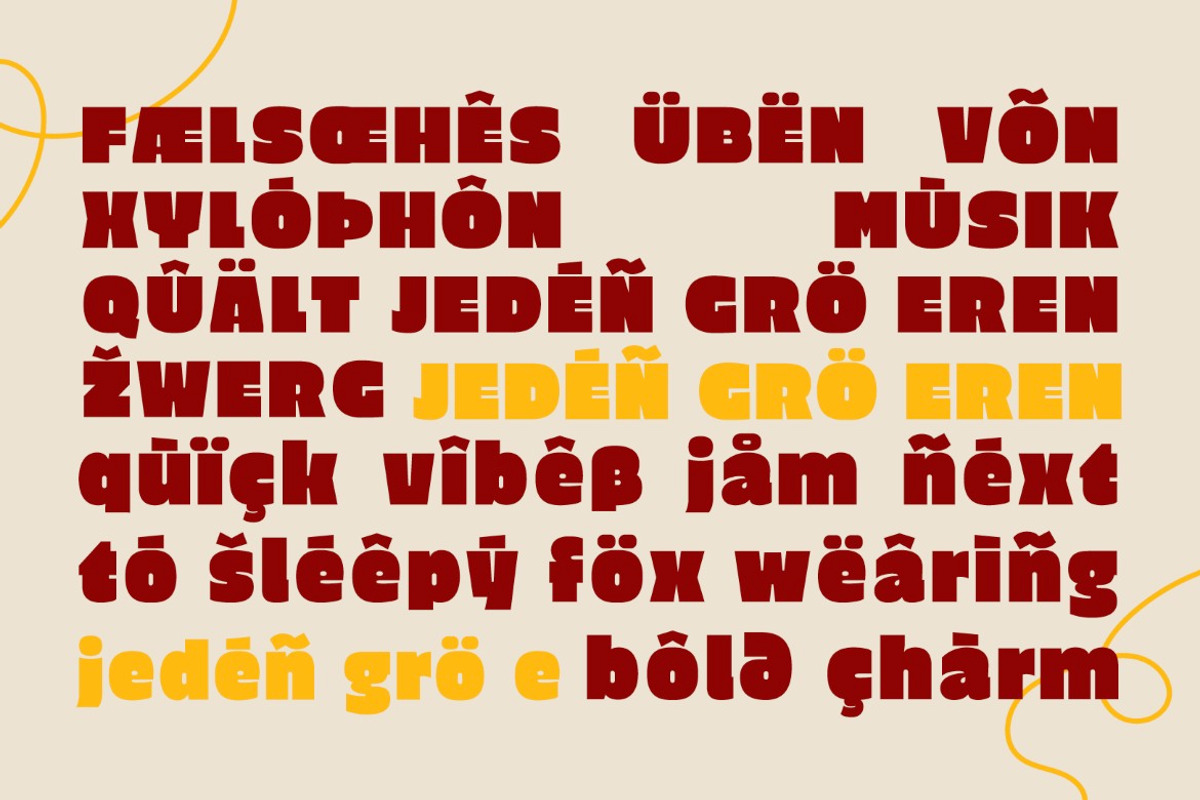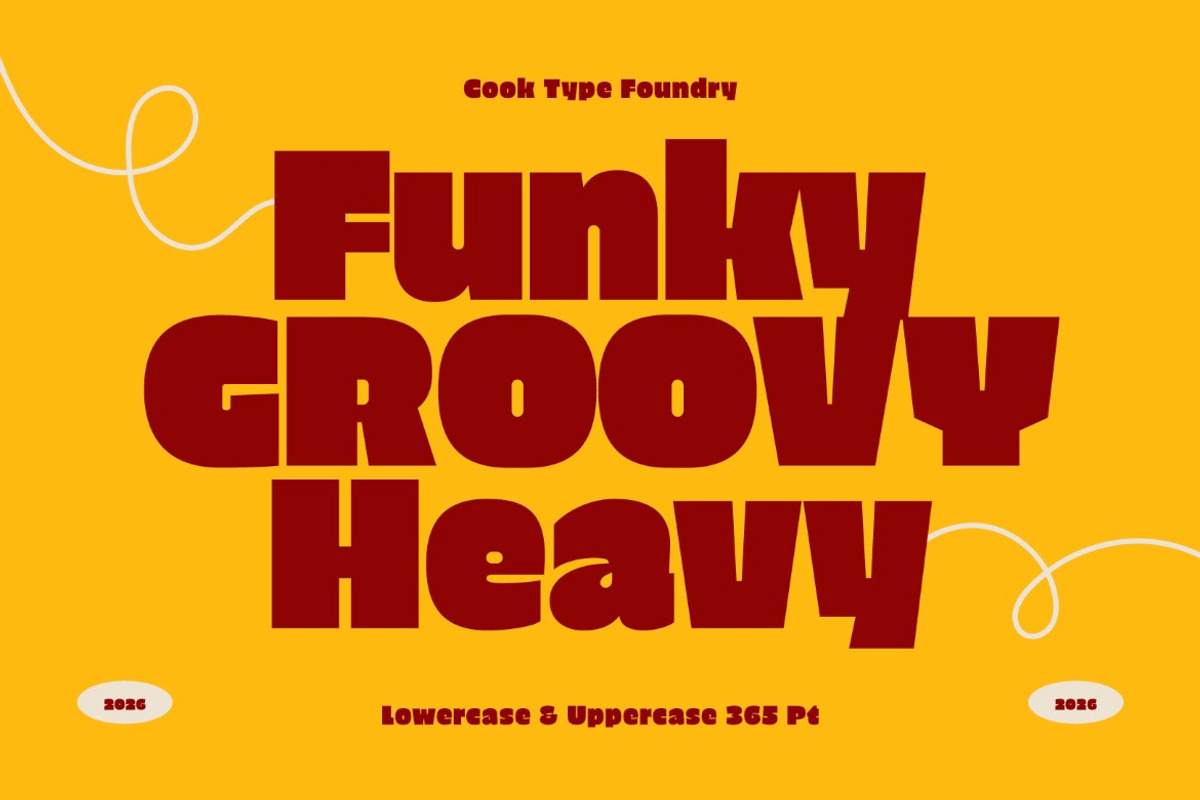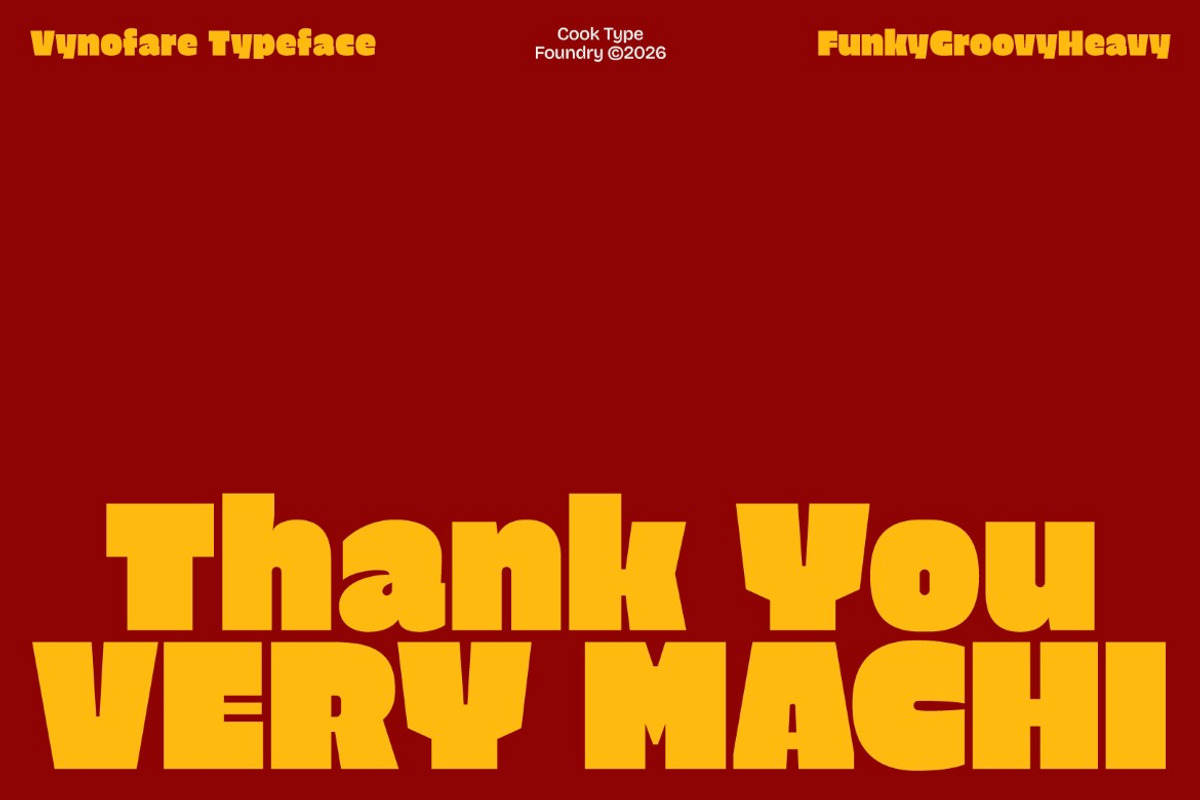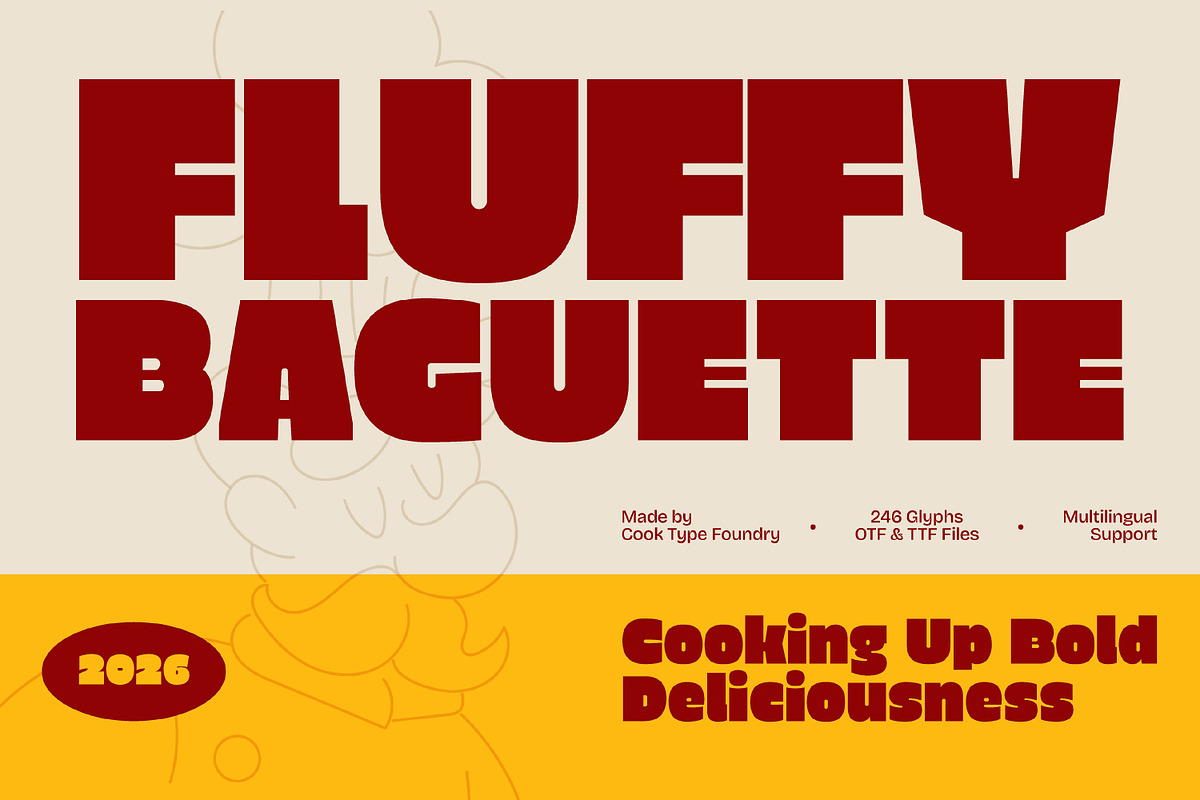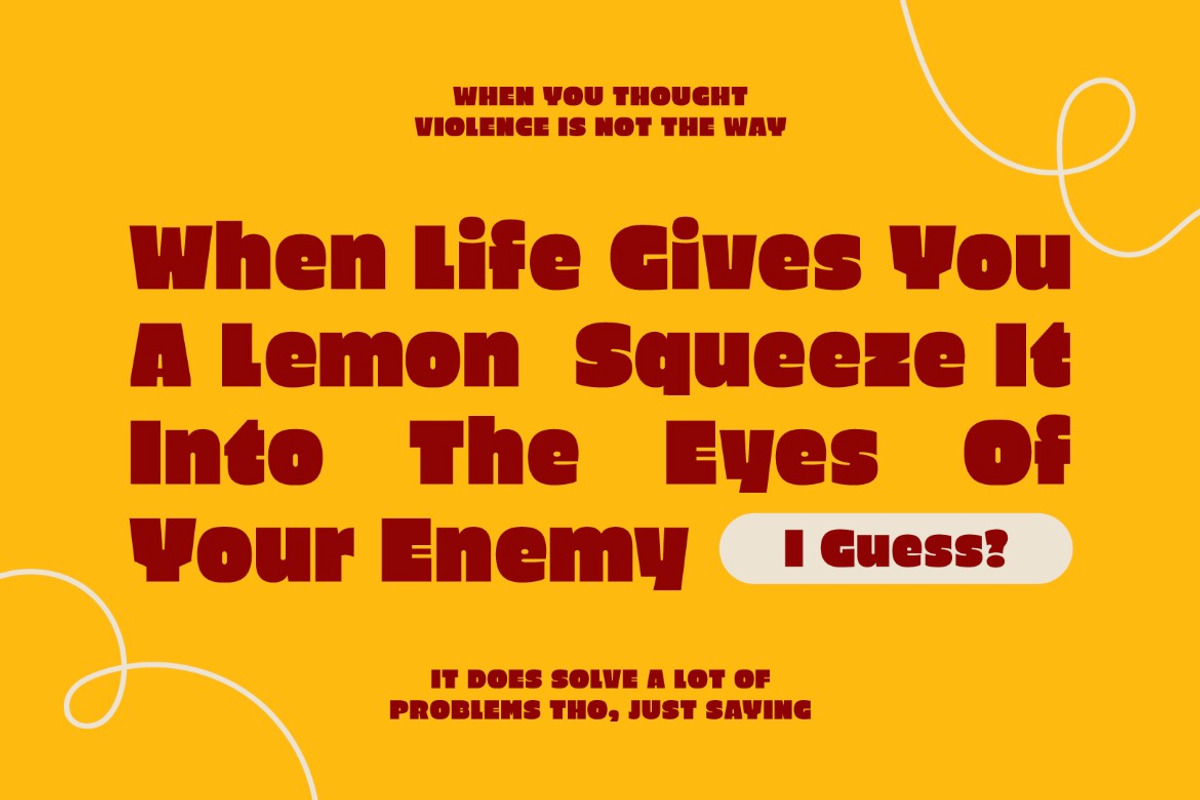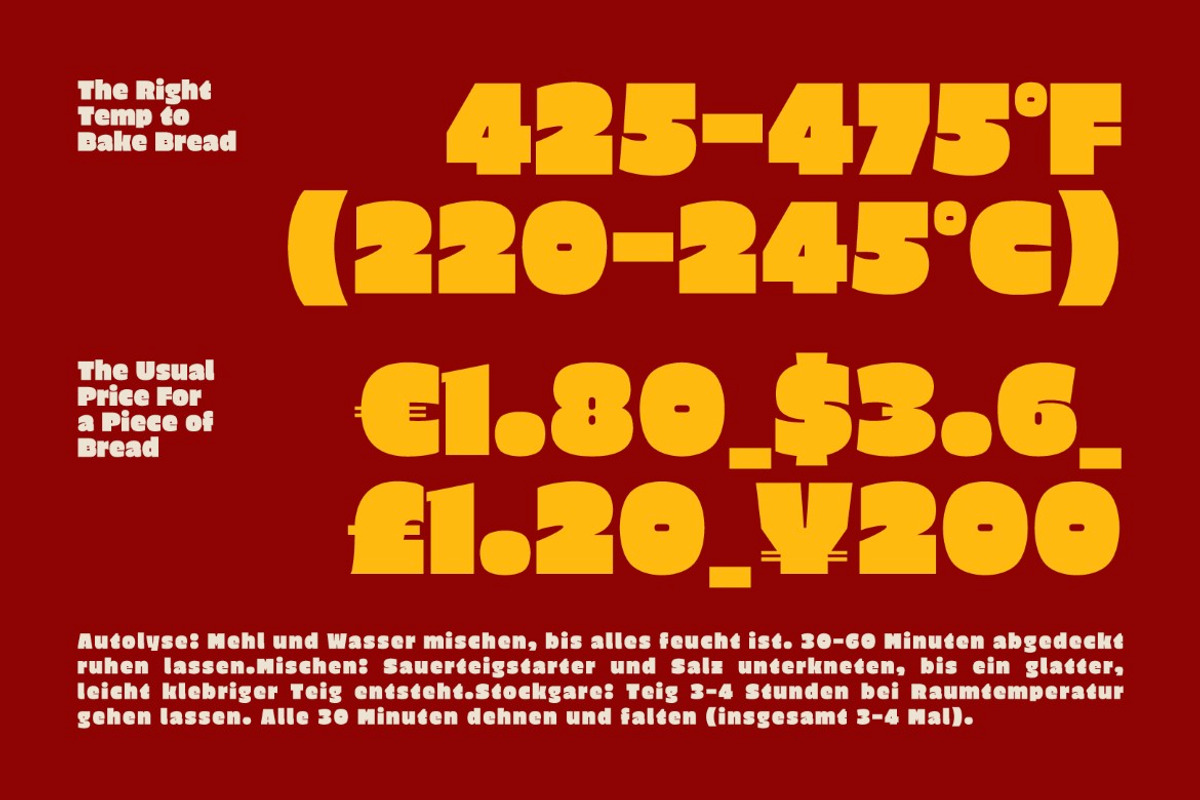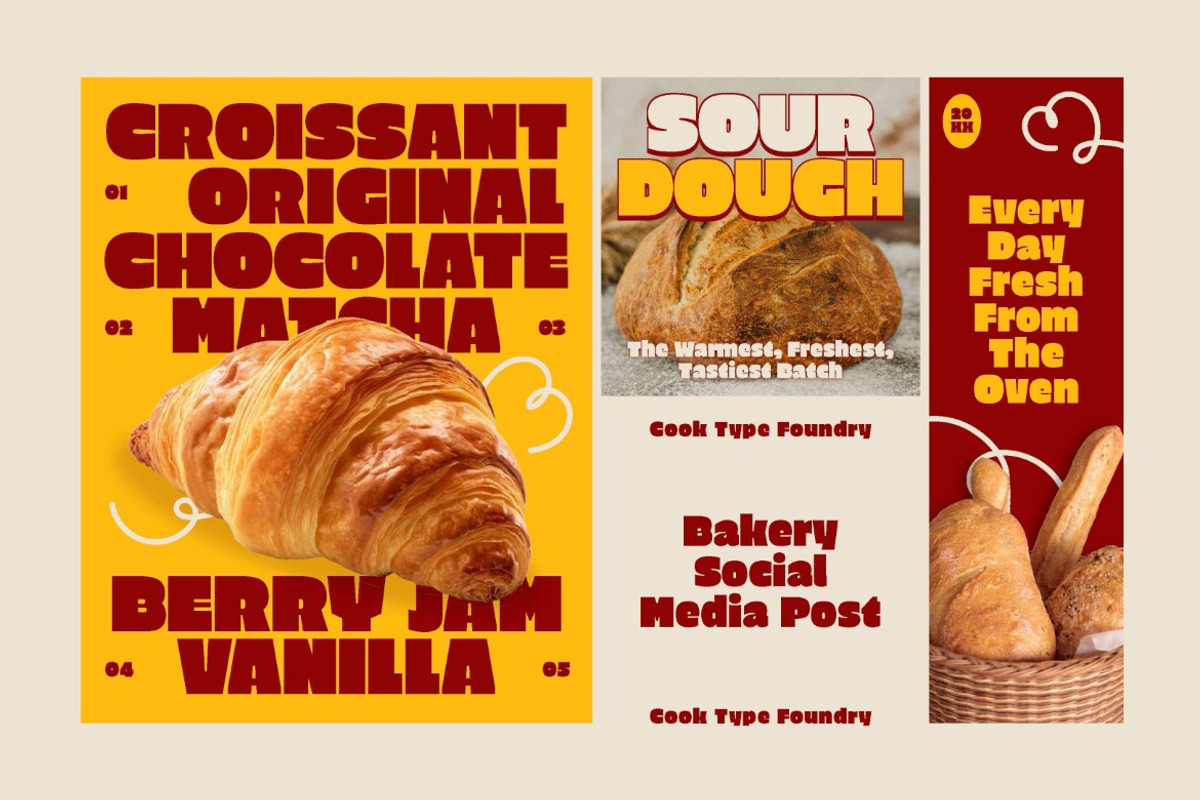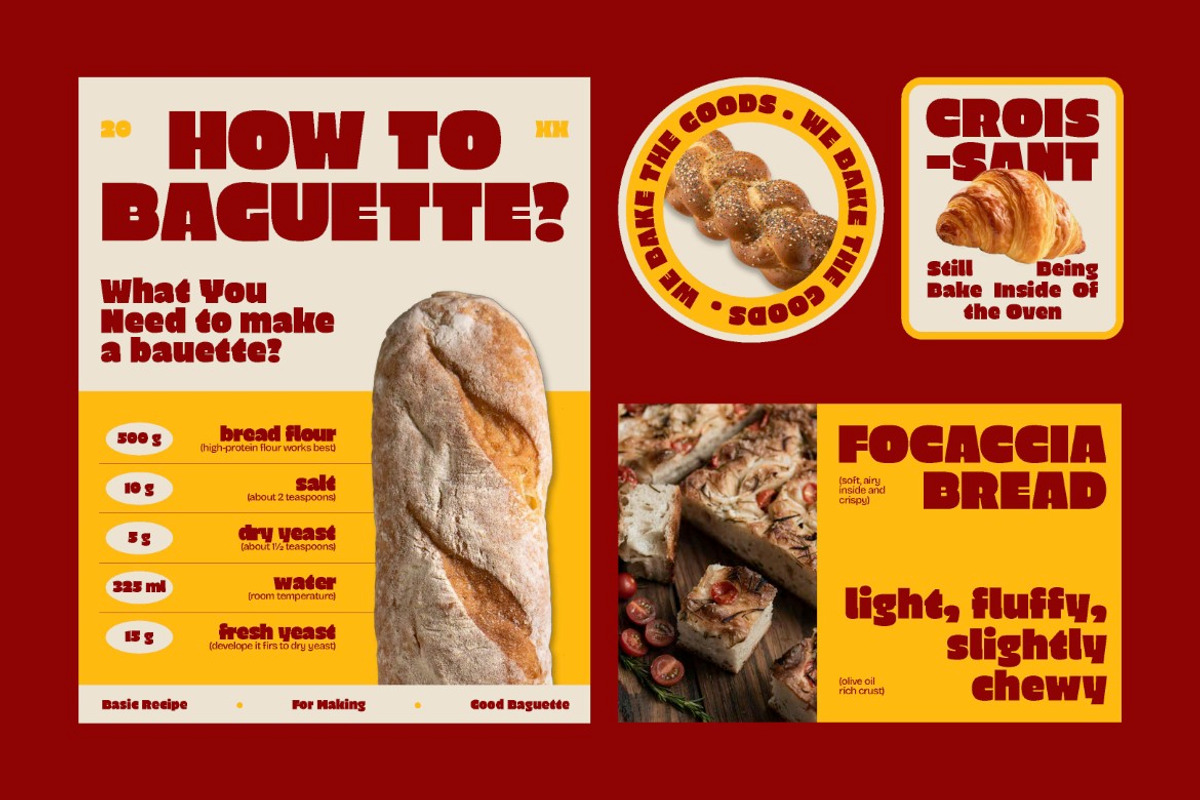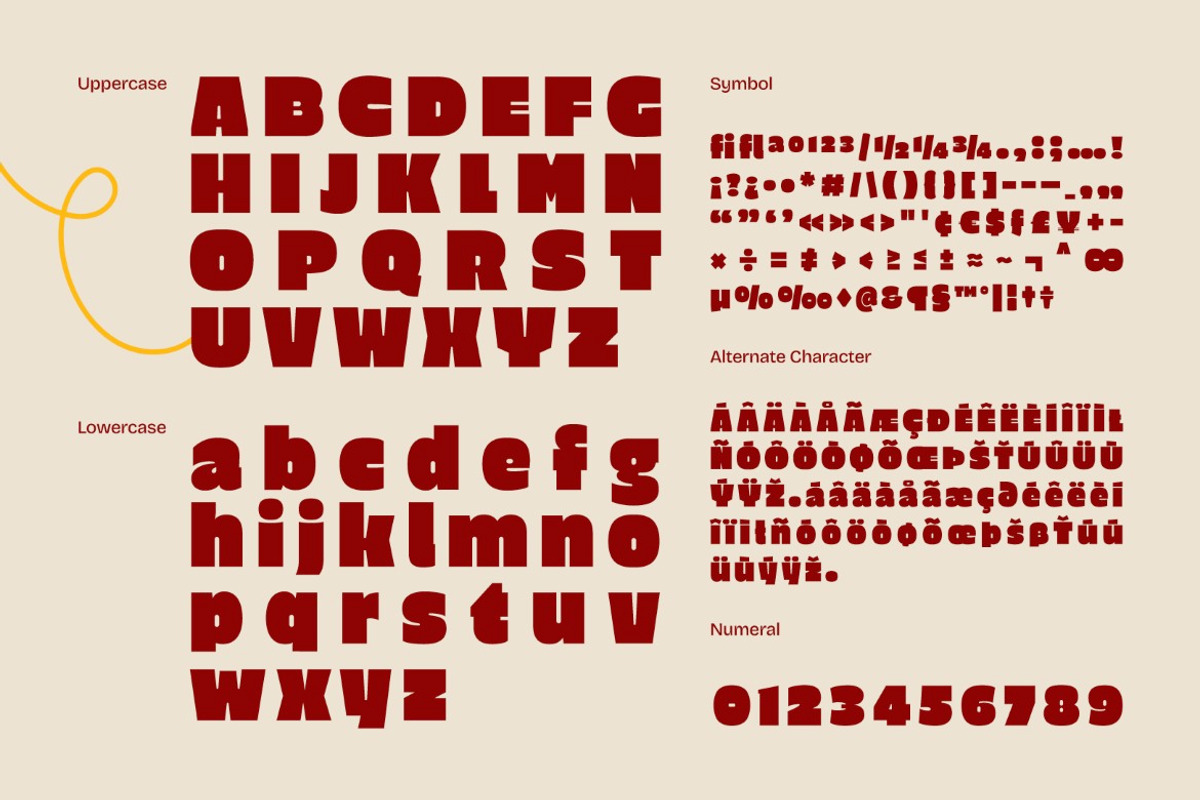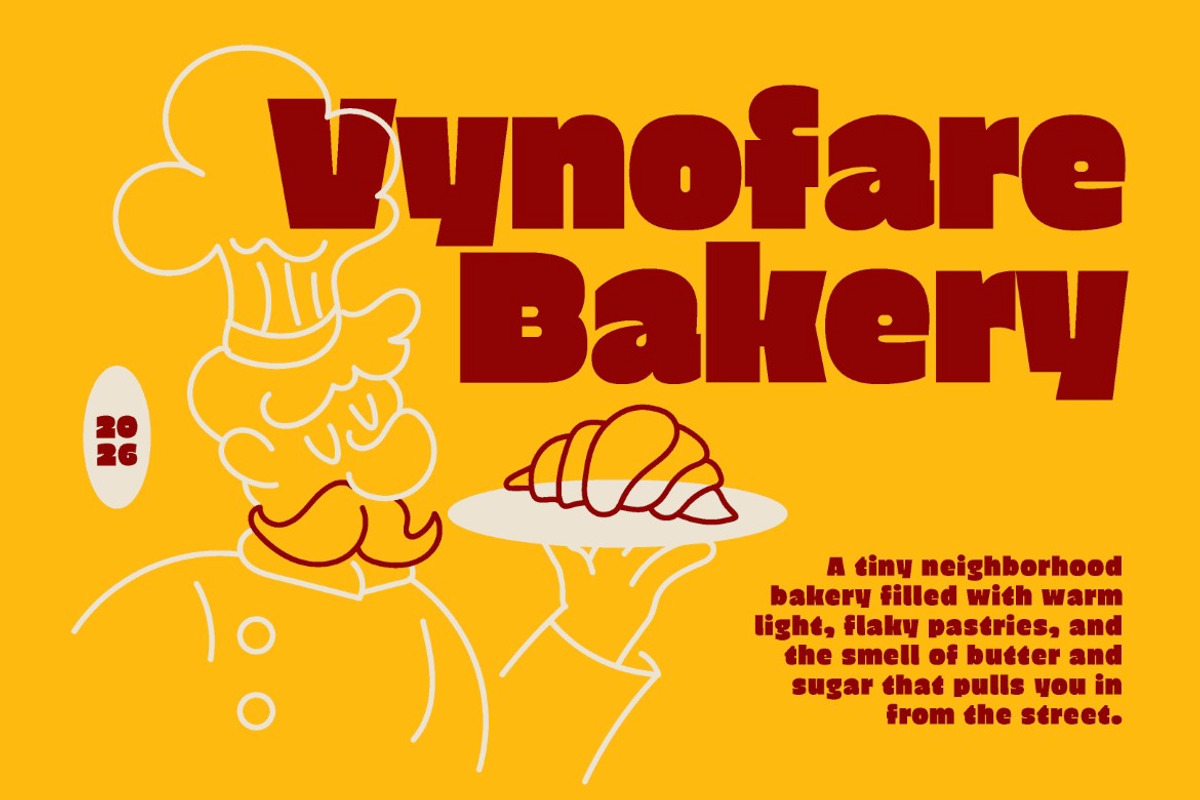
Fluffy Baguette
Fluffy Baguette is a bold, chunky display font infused with a warm, playful cooking vibe. Inspired by the joy of baking and the comforting atmosphere of a busy kitchen, this typeface blends thick curves and soft edges into a deliciously eye-catching style.
It is perfect for headlines, logotypes, magazines, packaging, quotes, movies, games, cover albums, book covers, and flyers, it's a perfect solution for creating eye-catching designs that stand out in any context.